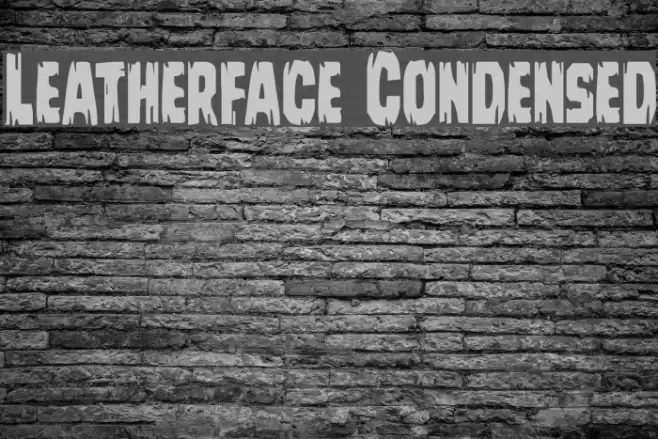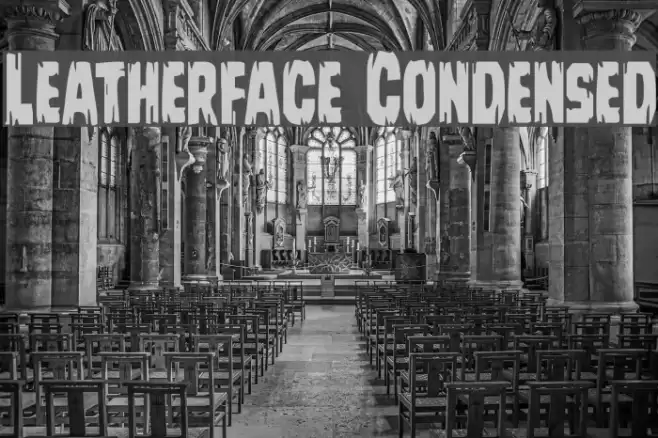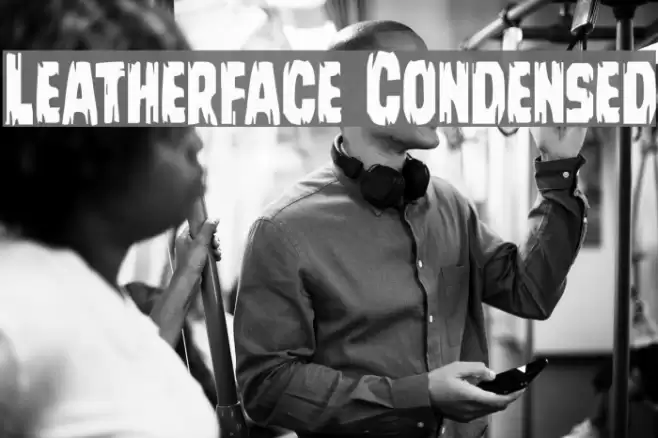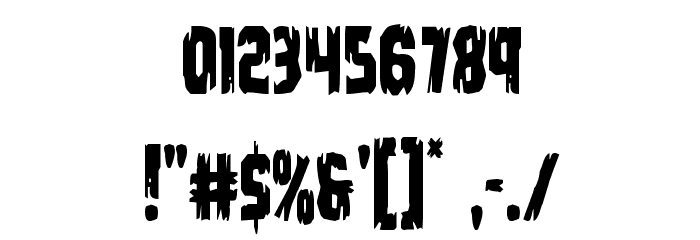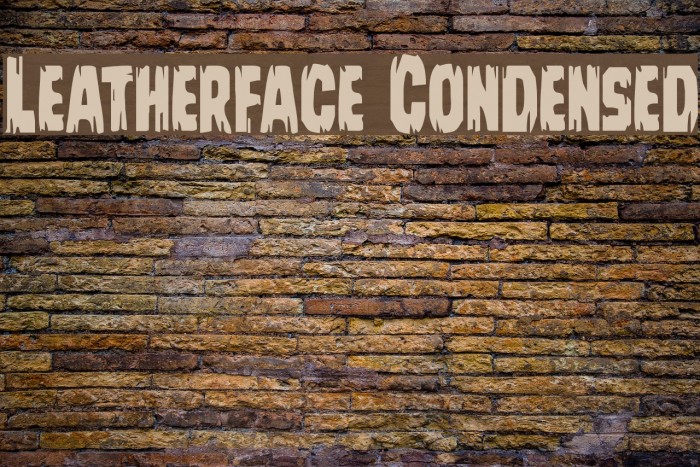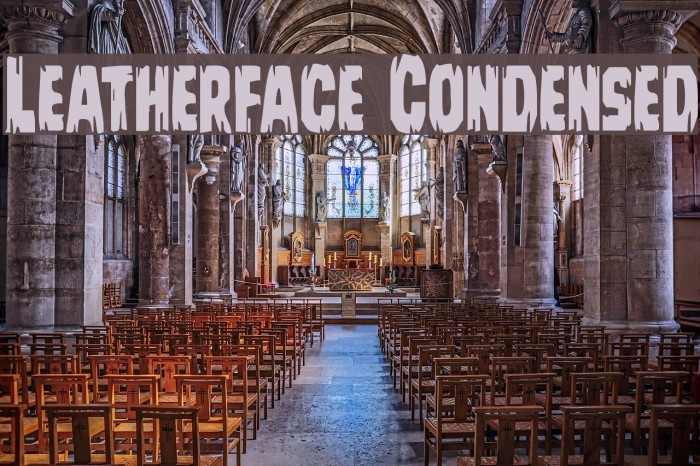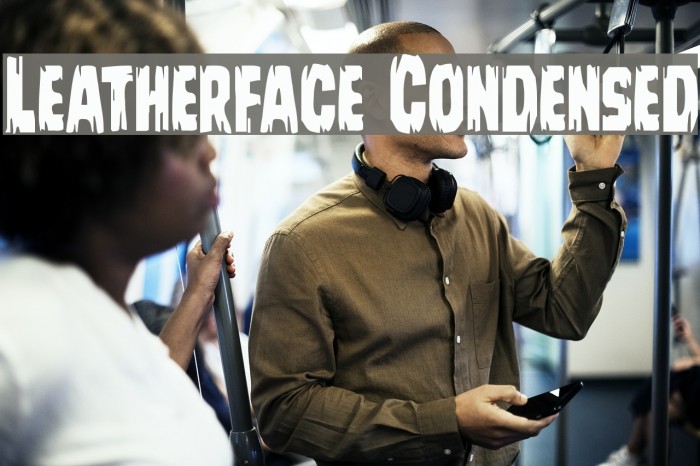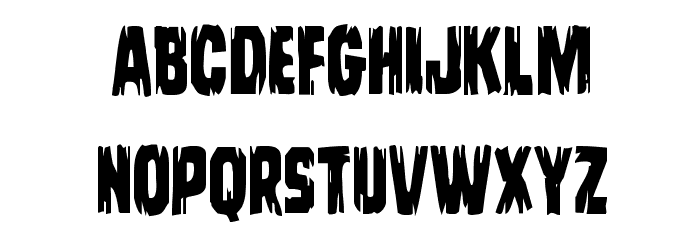
Leatherface Condensed Font
Leatherface Condensed Description
This font features a bold and rugged design, characterized by its distressed and jagged edges. The letters have an uneven texture that gives a raw, gritty appearance, reminiscent of horror or thriller themes. The condensed style makes it suitable for creating a compact yet impactful visual presence. The uppercase and lowercase letters maintain a consistent style, with numbers and special characters following the same distressed aesthetic. This font is ideal for projects that require a dramatic and edgy look, such as movie posters, Halloween-themed designs, or any creative work that aims to evoke a sense of suspense or intensity.
A bold, distressed font with a rugged, horror-themed aesthetic from Uncategorized fonts.
- Proposed Projects: Ideal for horror movie posters, Halloween event flyers, edgy album covers, and suspenseful book titles.